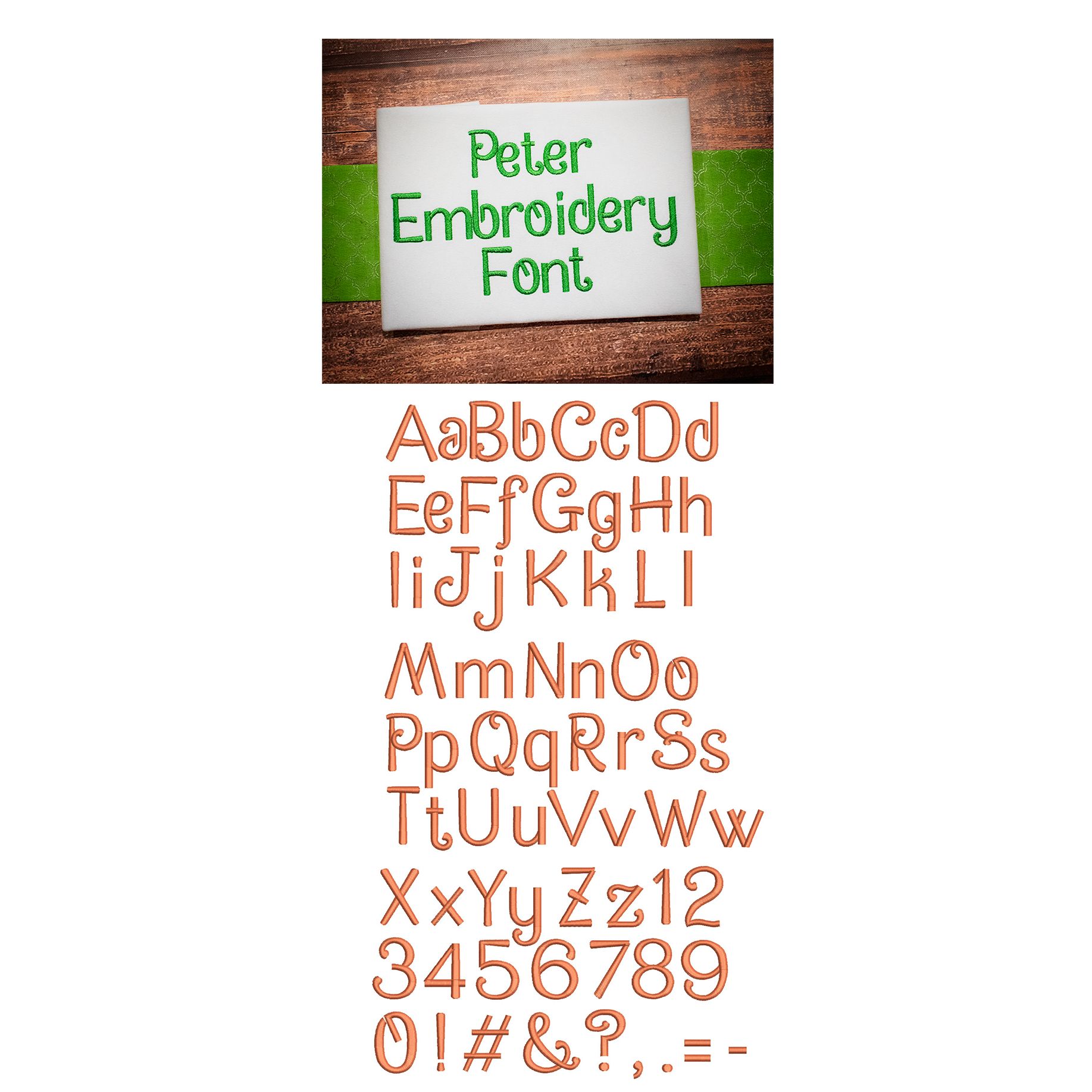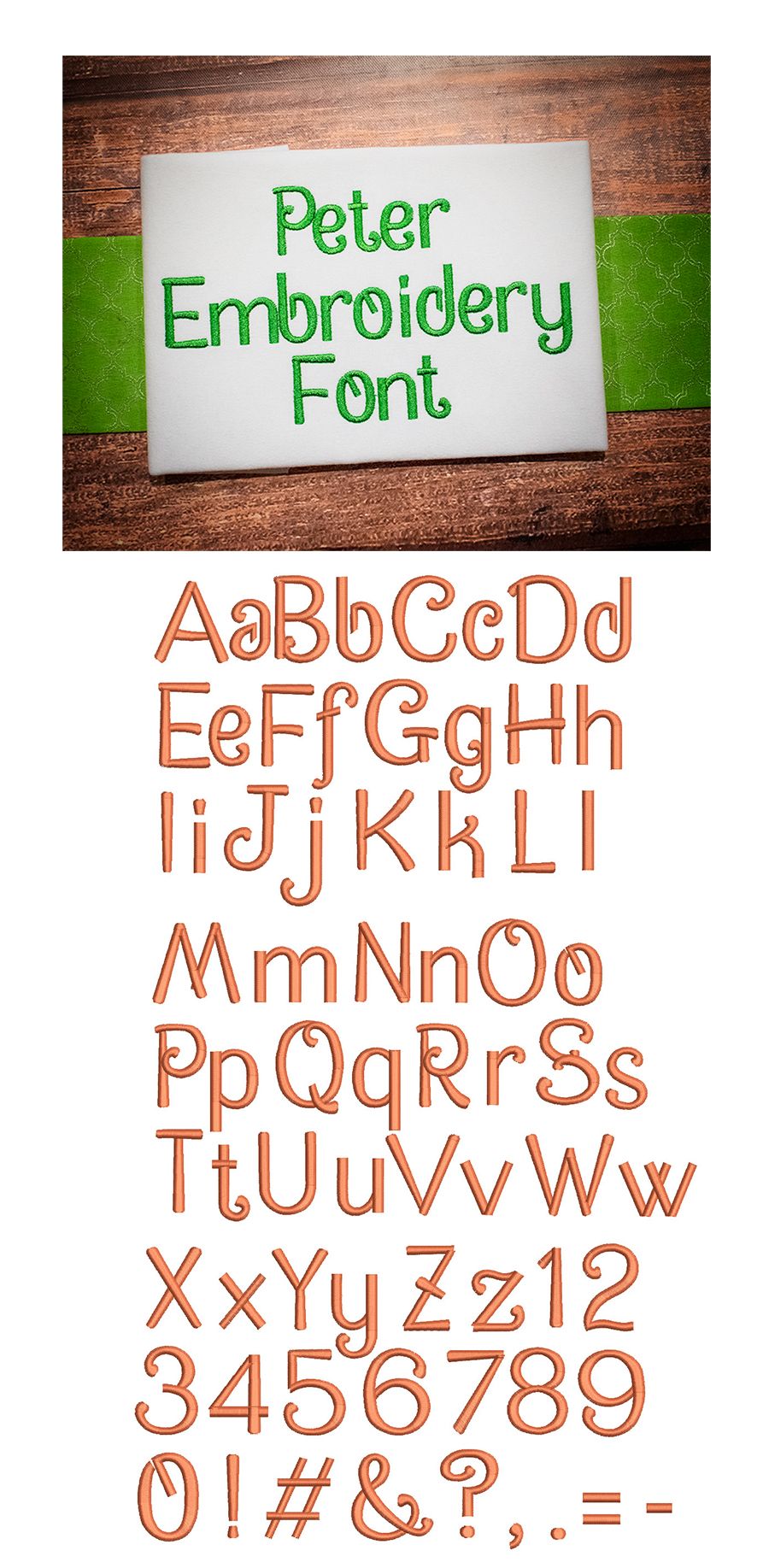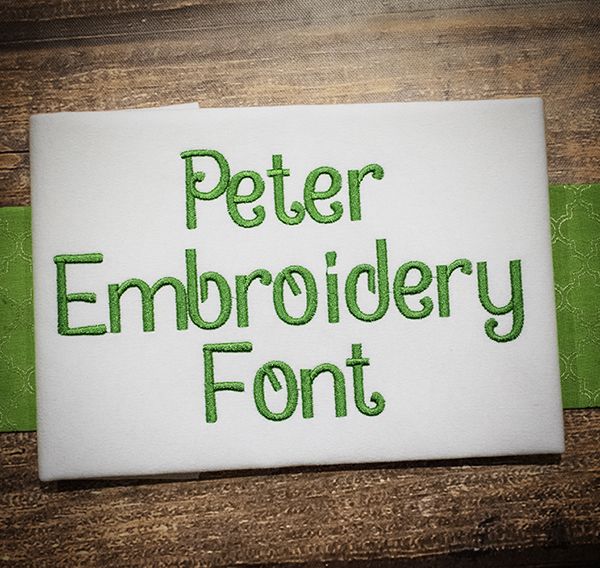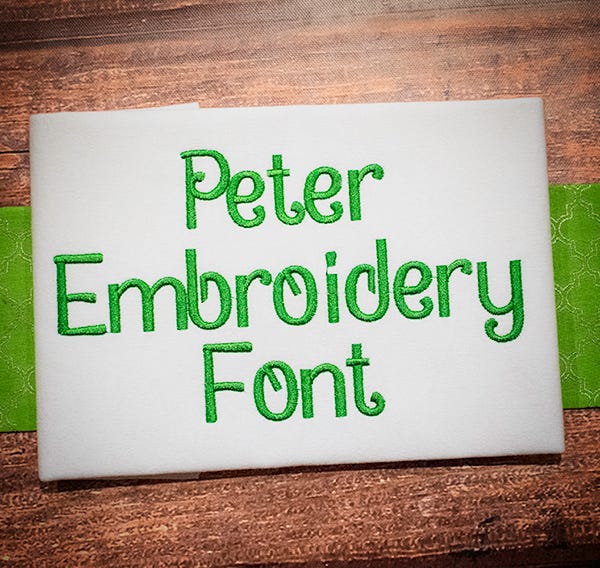
Peter Satin Stitch Embroidery Font
Clean, whimsical, print font!  All of our font alphabets are 100% manually digitized to bring you maximum stitch quality.
Designs by JuJu Exclusive